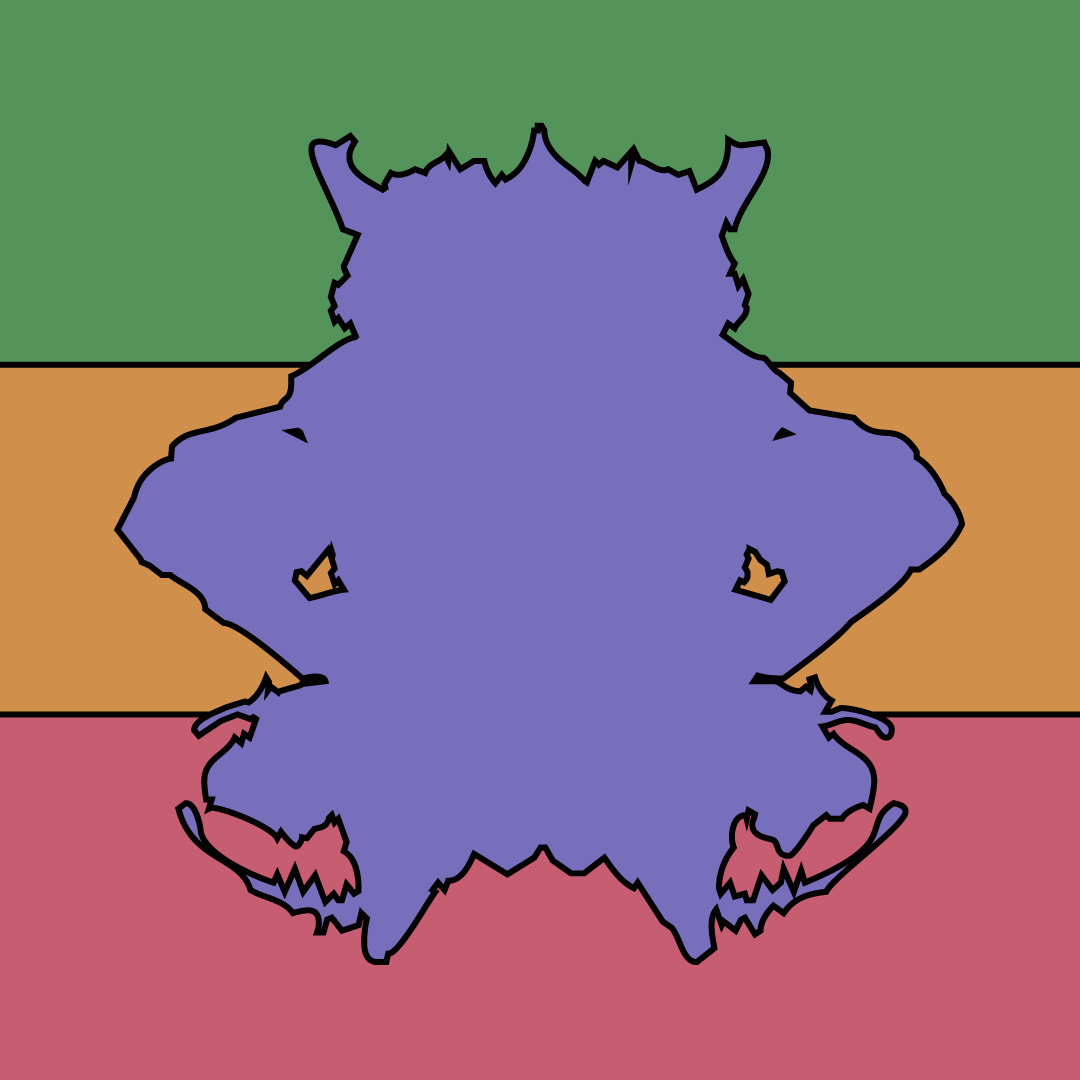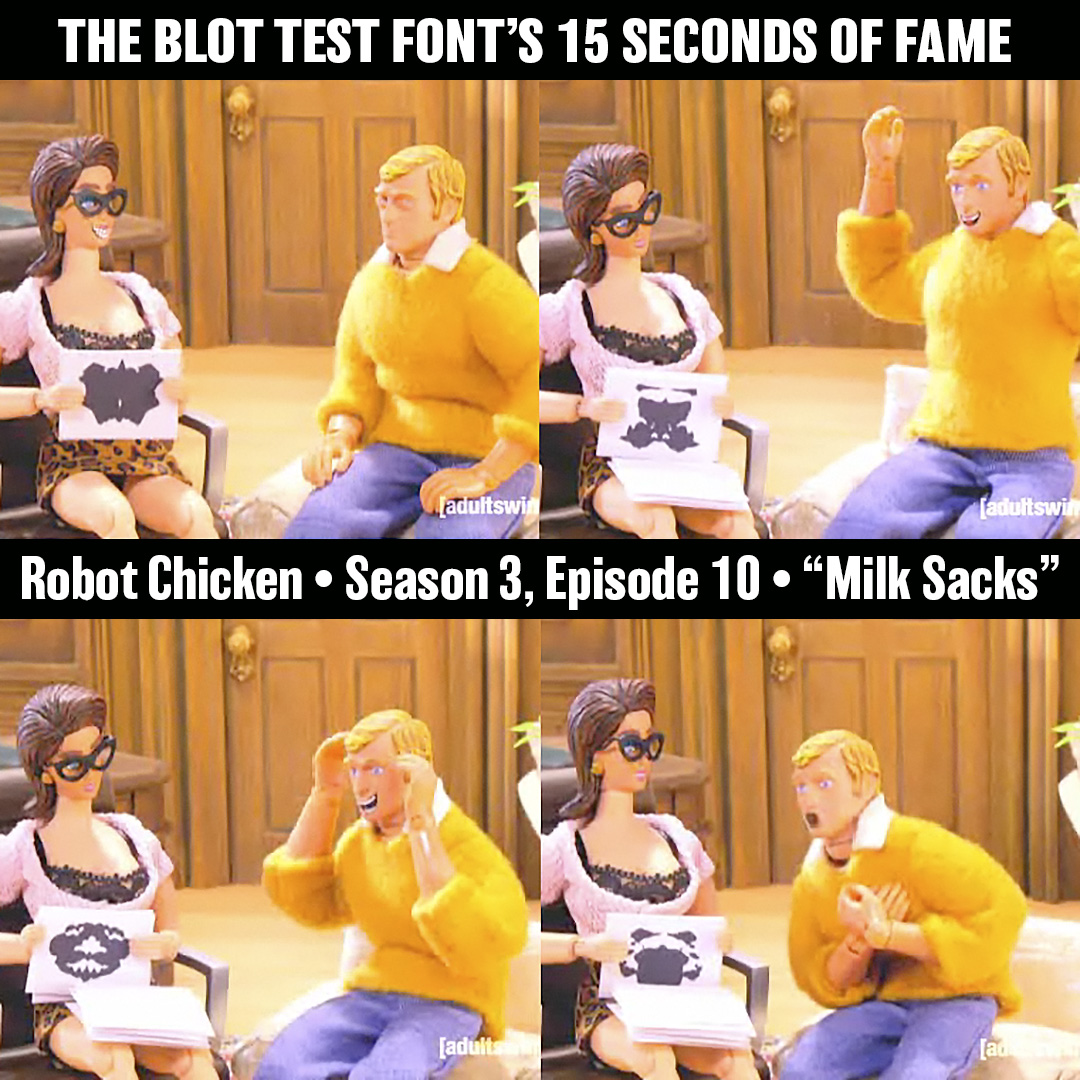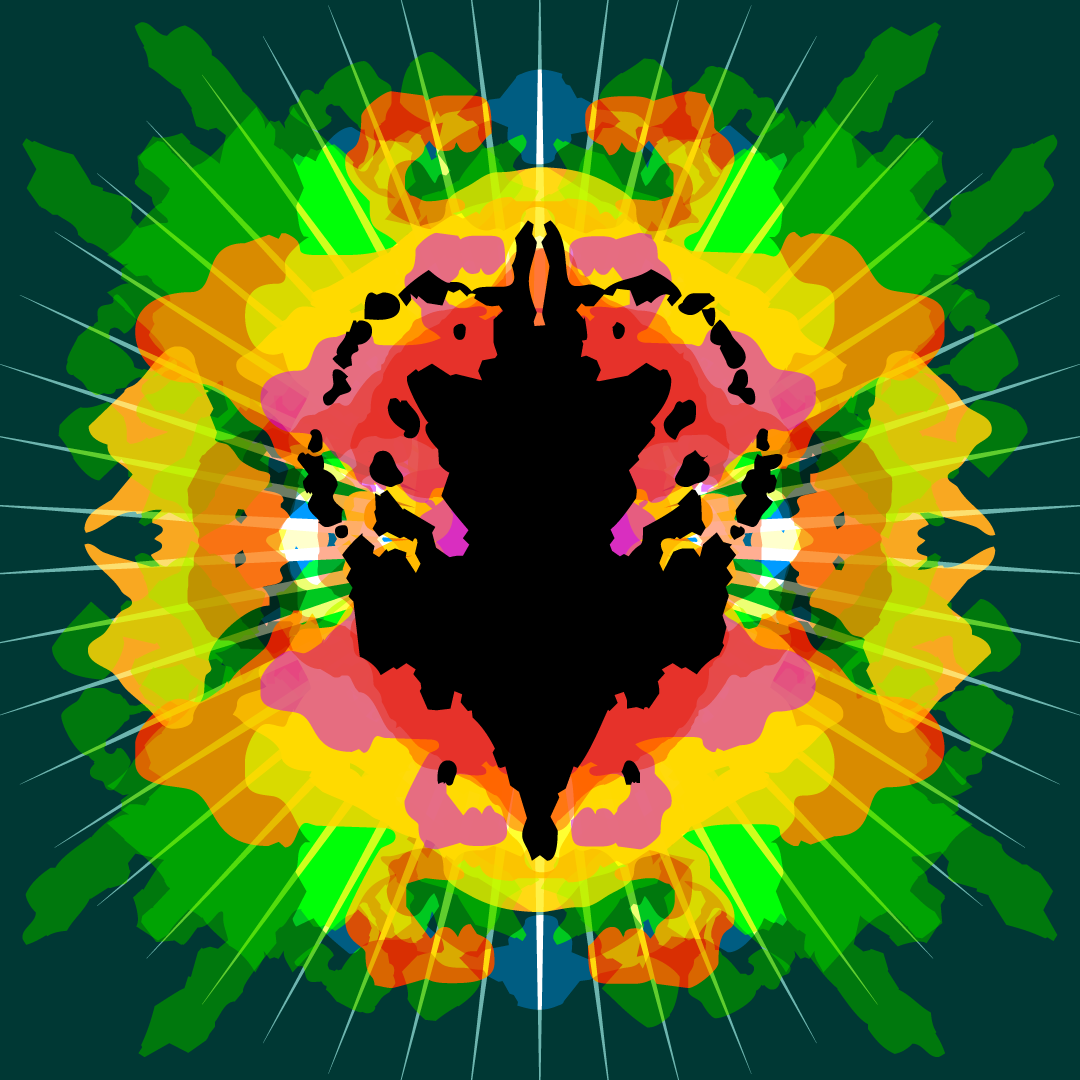
Blot Test
Inspired by Hermann Rorschach’s work.
Designed by Delve Withrington
Inspired by the work of the noted Swiss Freudian psychiatrist and psychoanalyst Hermann Rorschach [1885-1922], this Blot Test is a symbol font comprised of 52 fascinating vectorized ink blot glyphs.
Rorschach’s famous 10 ink blots were introduced in 1921, in a monograph called Psychodiagnostik. It garnered much attention and the “Rorschach Ink Blot Test” became the clinical psychologists’ preferred test during the 1940s–‘50s. The test reportedly reflected unconscious parts of the personality that “project” onto the stimuli (ink blots) and subjects reported what objects or figures they see in them.
You may draw your own conclusions from these ink blots carefully vectorized from actual ink applied to real paper by Delve Withrington, in the same manner as the original ink blot tests.